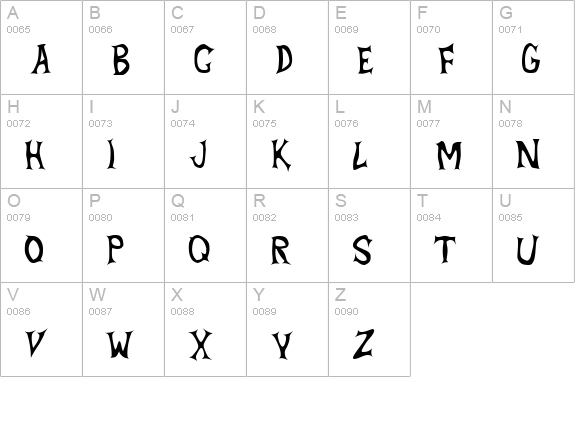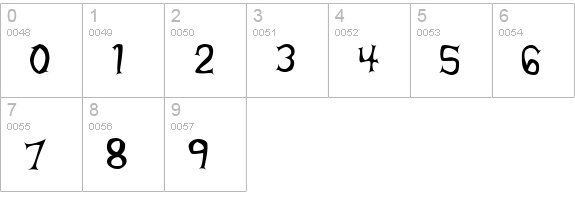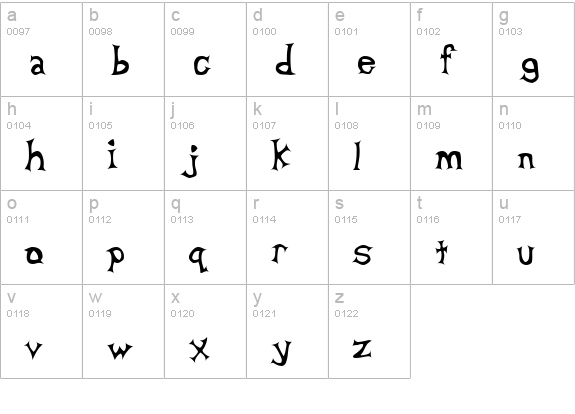
Beta Dance Font Details
Beta Dance font is a stylish and modern typeface that is perfect for adding a touch of elegance to your design projects. With its sleek lines and contemporary flair, this font is sure to make a bold statement. Whether you're creating a logo, poster, or website, Beta Dance font will bring a sense of sophistication to your work. The best part is that Beta Dance font is available for free download at FontsMarket.com. This means you can easily access this beautiful font and incorporate it into your designs without any hassle. So why wait? Download Beta Dance font today and take your designs to the next level!